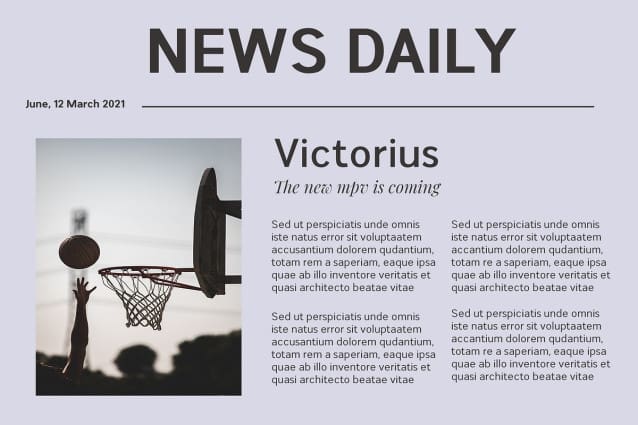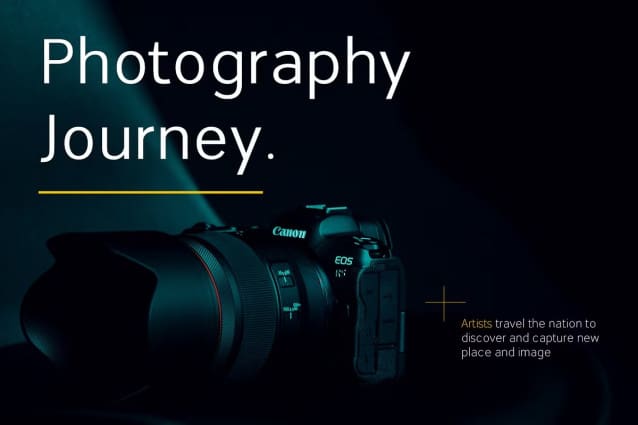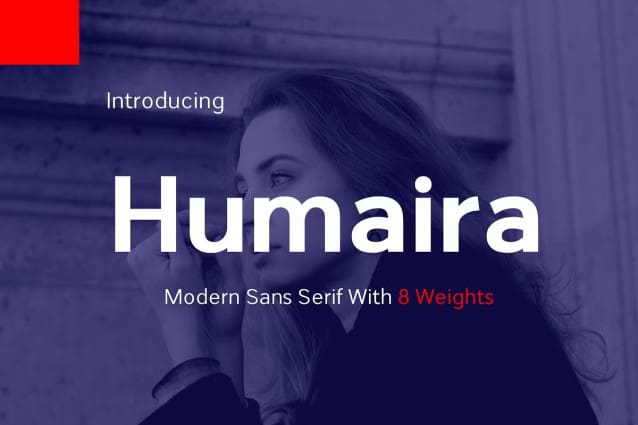
Humaira Font Family
Humaira Font Family is a modern sans serif font that embodies elegance and charm in every character. It is perfect for luxury logos, branding, classy editorial designs, women magazines, cosmetic brand, promotional designs, the fashion industry, and more. Humaira is perfect for branding projects, logo, wedding designs, social media posts, advertisements, product packaging, product designs, label, photography, watermark, invitation, stationery and any projects